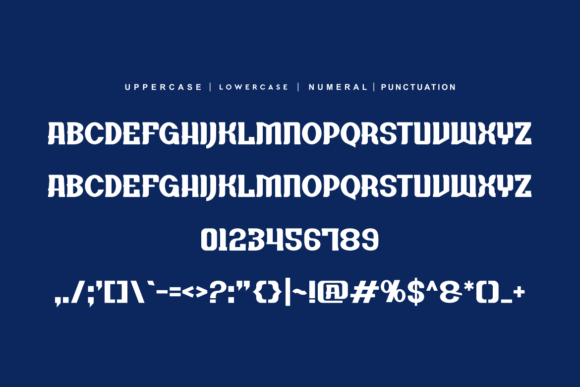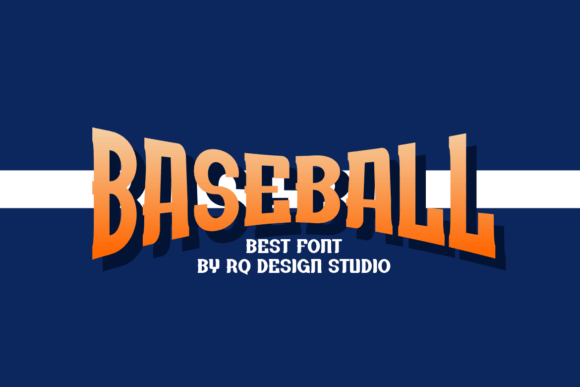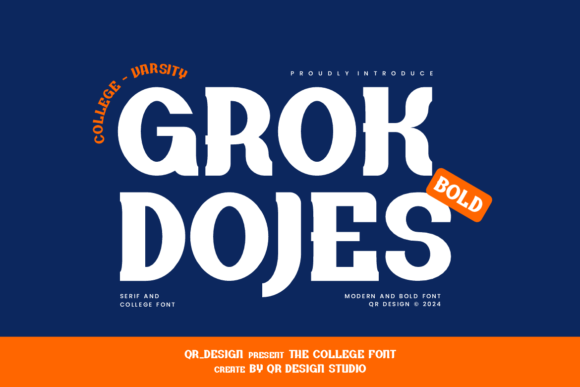
Grokdojes Font
Designer: qrdesignstd
Gaming Font is a unique and interesting serif font. A little bit quirky, this font looks incredibly adept on a wide variety of contexts!